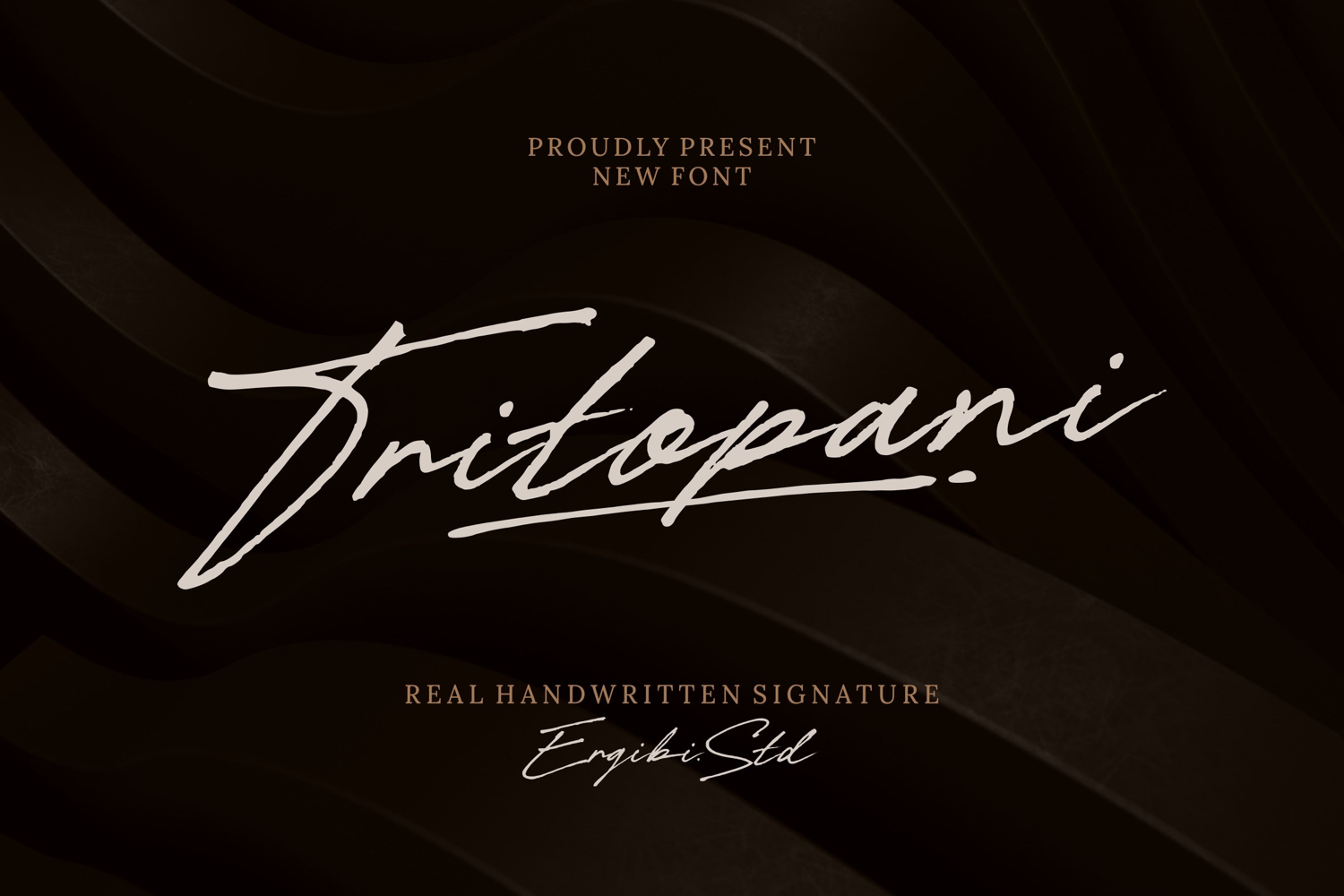
Tritopani
Tritopani is a real handwritten signature font born from the simple joy of putting pen to paper. It reflects the natural rhythm, subtle imperfections, and easy flow of a genuine signature—unplanned, relaxed, and full of character.